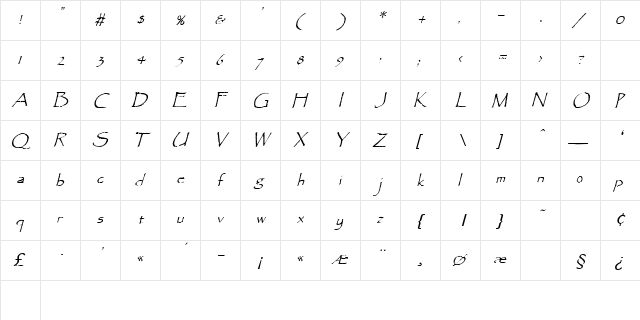
Axlerod 1 Italic
Design Context for Axlerod 1 Typeface
Axlerod 1 takes a measured approach to typography — its balanced proportions and neutral character make it a reliable workhorse for both digital and print work. The dynamic lean of this cut emphasises speed and emphasis in any layout.
Pro Tip: Try Axlerod 1 for annotation and caption copy alongside an upright companion — the contrast in angle creates a dynamic but ordered typographic system.